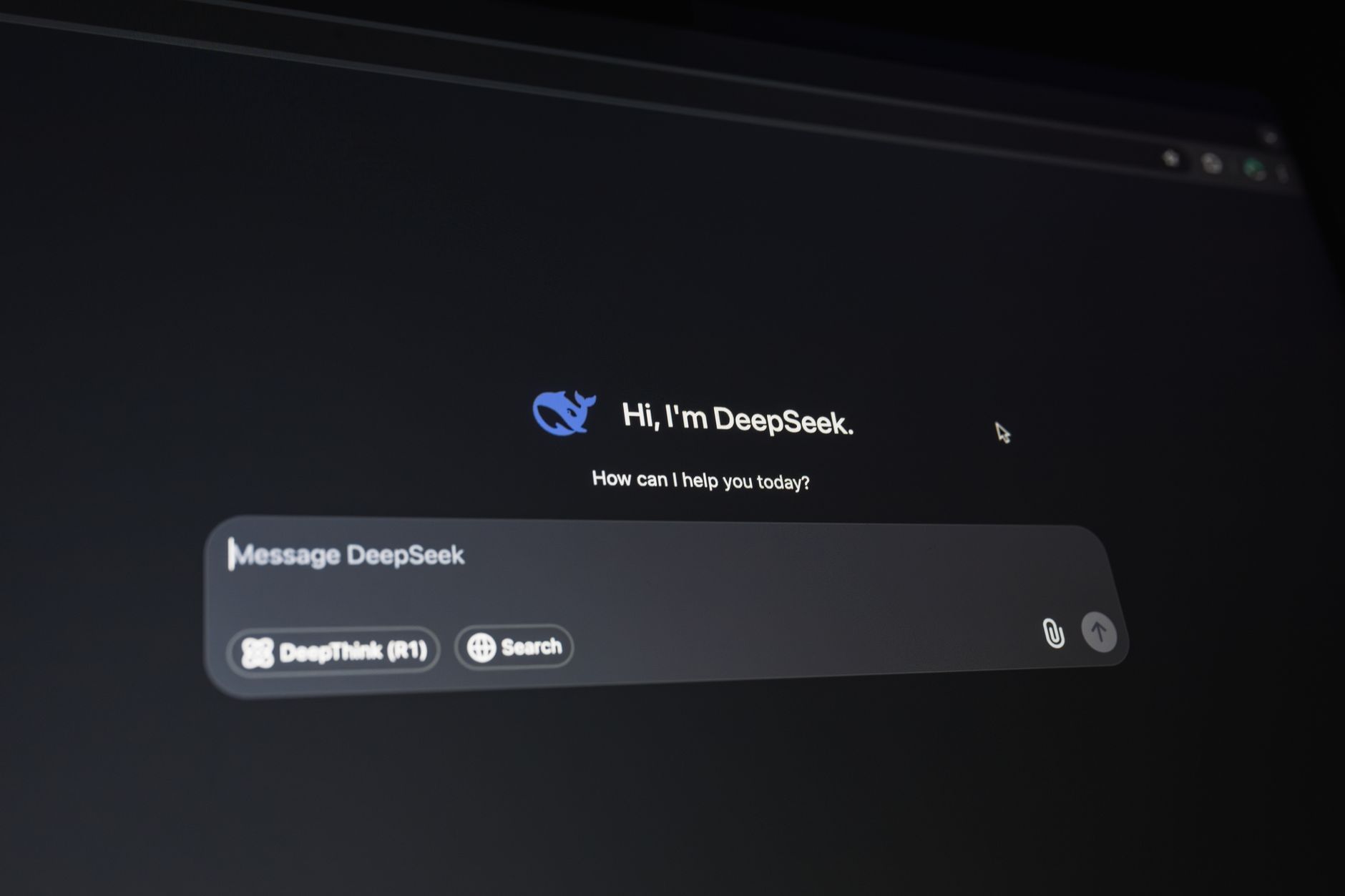
You’ve carefully selected a beautiful, clean sans-serif typeface, fine-tuned the hierarchy, and achieved the perfect layout on your light-themed website. But the moment your user flips the switch to dark mode, something unexpected happens: the elegant, readable text suddenly looks bloated, heavy, and slightly blurry.
What went wrong? You didn't change the font weight in your CSS.
The truth is, typography behaves differently depending on the background. In this post, we’ll explore the science behind why fonts look heavier in the dark, and look at the exact CSS techniques you can use to keep your typography crisp, legible, and visually consistent across both light and dark themes.
The phenomenon of light text looking thicker on a dark background isn't a browser bug; it's a quirk of human biology.
It is caused by the irradiation illusion, first documented by Galileo Galilei. When our eyes look at a bright object on a dark background, the light stimulates our photoreceptors in a way that bleeds over into adjacent, unstimulated cells. This visual bleeding—often called halation—makes the light area appear larger than it actually is.
Conversely, when reading dark text on a light background, the bright white space "pinches" the black text, making the letters appear slightly thinner and sharper.
When you invert your UI color scheme without adjusting the typography, the irradiation illusion takes over. Your regular 400 weight font suddenly mimics a semi-bold 500 weight, reducing the negative space inside letters (like the counters in "o", "e", and "a") and diminishing readability.
To combat this illusion, we need to artificially thin out our typography when dark mode is active. Here are the three most effective CSS techniques to achieve this.
If you are using modern variable fonts, you have the ultimate superpower for dark mode typography. Instead of jumping from 400 (Regular) to a dramatically thinner 300 (Light), you can shave off a tiny fraction of weight using the font-weight axis.
Here is how you can implement this transition using CSS custom properties:
By reducing the body text weight to 360, the text will visually match the weight of the 400 text on the light background, restoring intended legibility.
Browsers render fonts using different antialiasing algorithms. On macOS and iOS, browsers default to subpixel antialiasing, which adds a colored fringe around letters to make them look smoother on LCD screens.
On dark backgrounds, subpixel rendering can make text look noticeably thicker. We can switch to grayscale antialiasing in dark mode to instantly make text look sharper and thinner.
Note: Use this property selectively. While some designers apply it globally, turning it on in light mode can make fonts look too thin and washed out. Applying it exclusively to dark mode is a great way to balance the scales.
The intensity of the irradiation illusion is directly linked to contrast. Pure white text (#FFFFFF) on a pitch-black background (#000000) creates the highest possible contrast, which causes the maximum amount of "light bleed" in our eyes. It also causes eye strain.
To mitigate this, slightly soften your dark mode colors:
#E0E0E0 or #F3F4F6) for your text.#121212 or #1E1E1E) for your background.@media (prefers-color-scheme: dark) {
By reducing the harshness of the contrast, you decrease the irradiation effect, which naturally keeps your font weight looking exactly as the type designer intended.
Great typography is invisible. When it's done right, users don't notice the effort—they just read effortlessly.
By scaling back your variable font weights slightly, optimizing your CSS font-smoothing properties, and avoiding harsh pure-white-on-black contrast, you can ensure your site’s typography remains beautiful, comfortable, and perfectly balanced in any light.